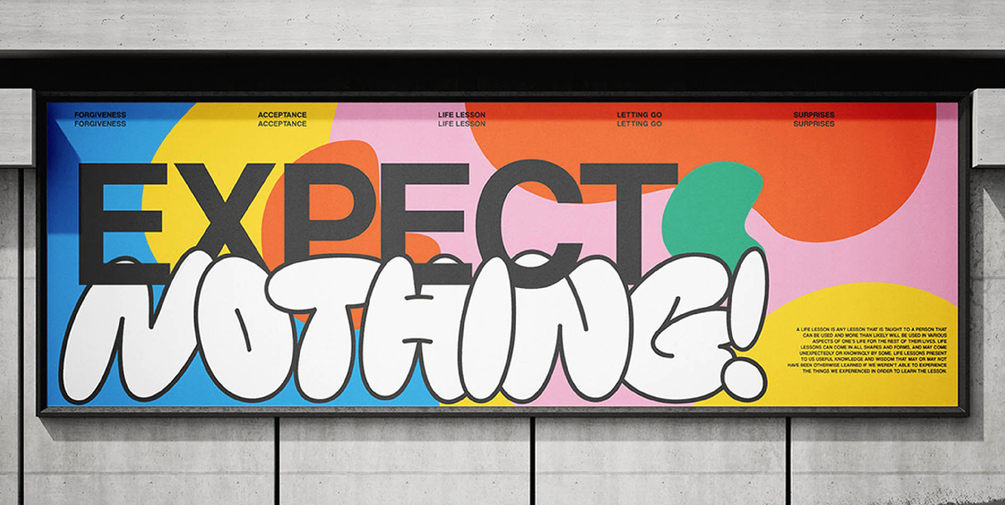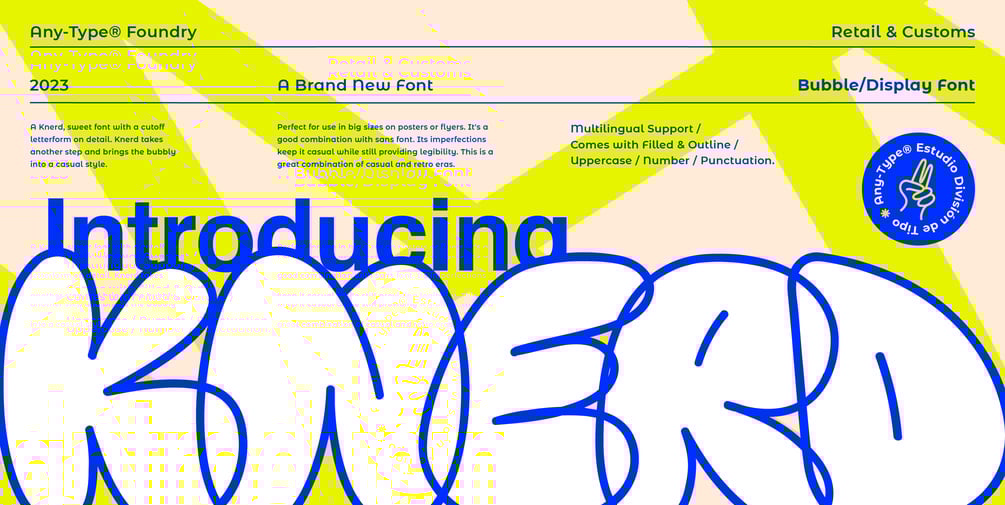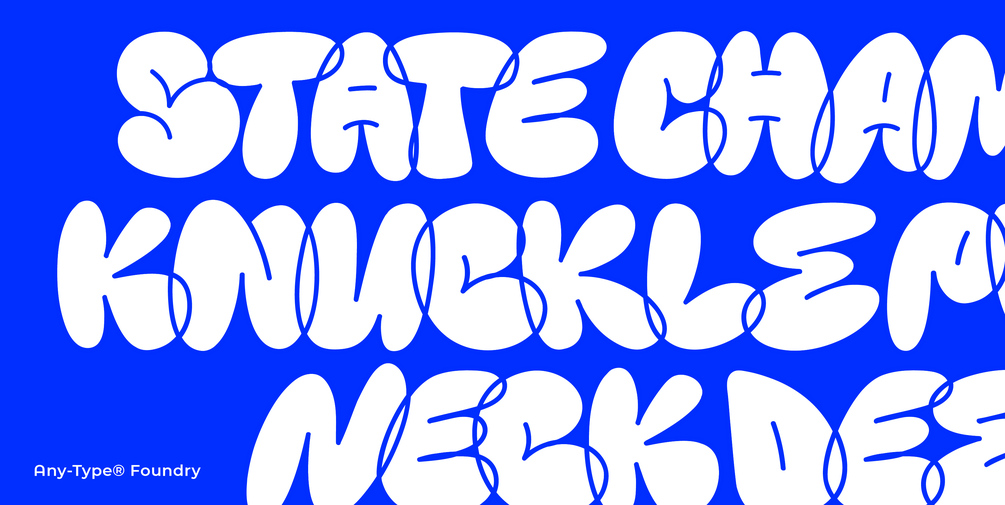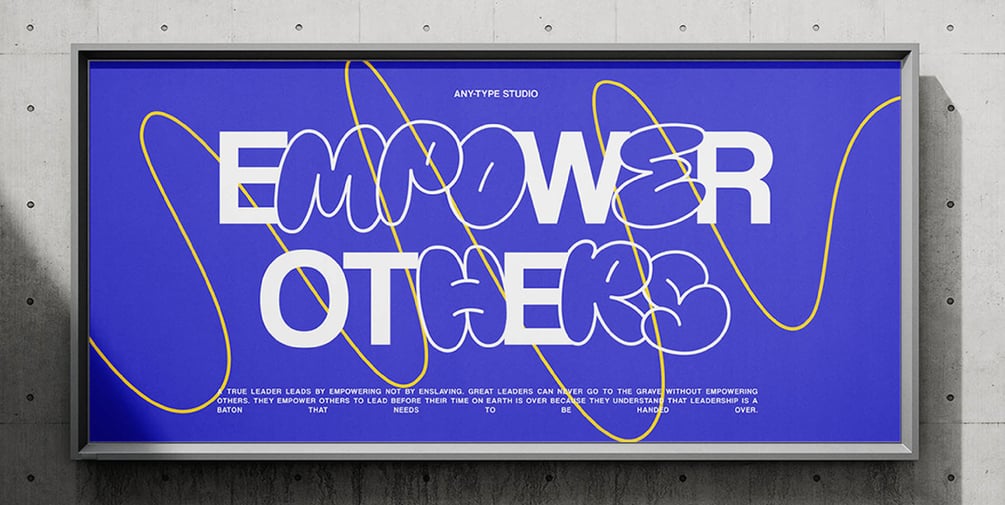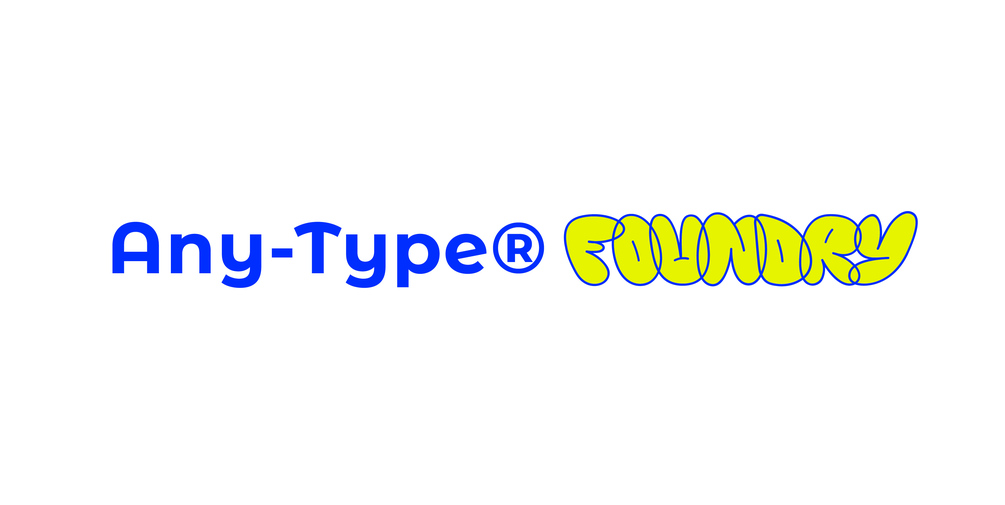
Knerd Bubble Font
KNERD BUBBLE FONT
A bubble, rounded, sweet font with graffiti touch and a cutoff letterform on detail. Knerd takes another step and brings the bubbly into a casual style. Perfect for use in big sizes on posters or flyers. It's a good combination with sans font. Its imperfections keep it casual while still providing legibility. This is a great combination of casual and retro eras.
Features
• Uppercase, Lowercase (All Caps)
• Comes with 2 style; Filled and Outline
• Multilingual Support
• Number & Punctuation